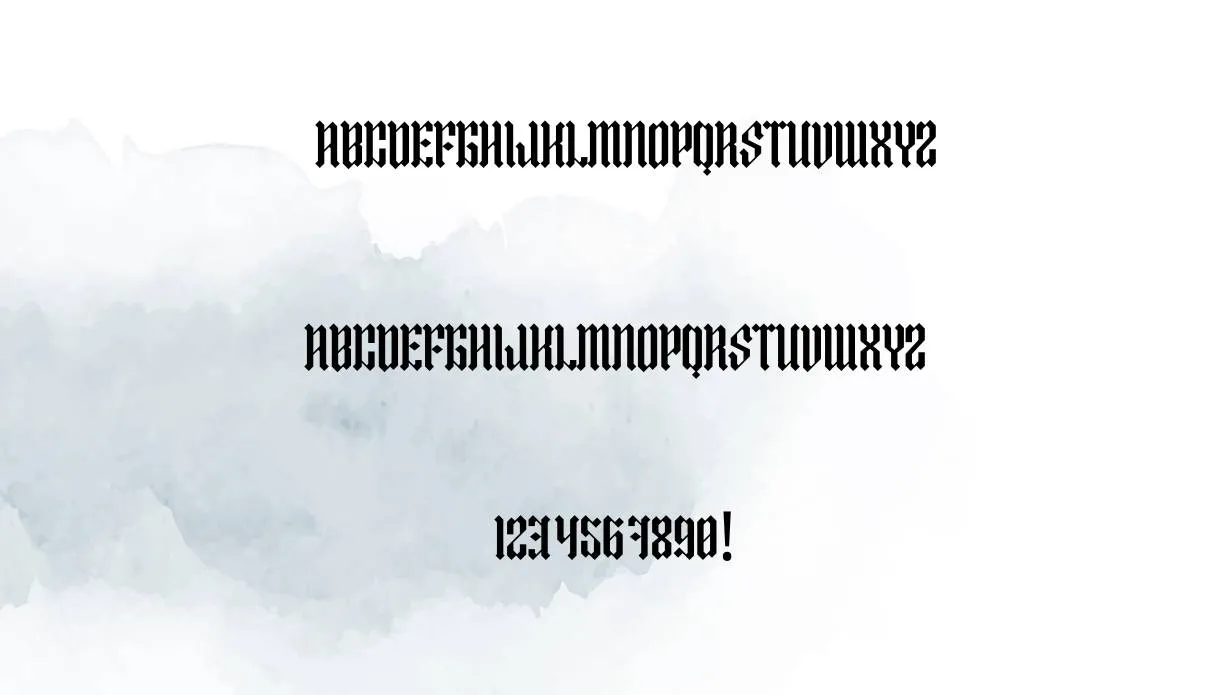
Panata Font emanates classic charm, making it an ideal choice for projects that require a timeless touch. Whether designing wedding invitations or elegant product packaging, this font adds a touch of sophistication.
| Name | Panata Font |
| Designer | AJ Dimarucot |
| Style | Gothic |